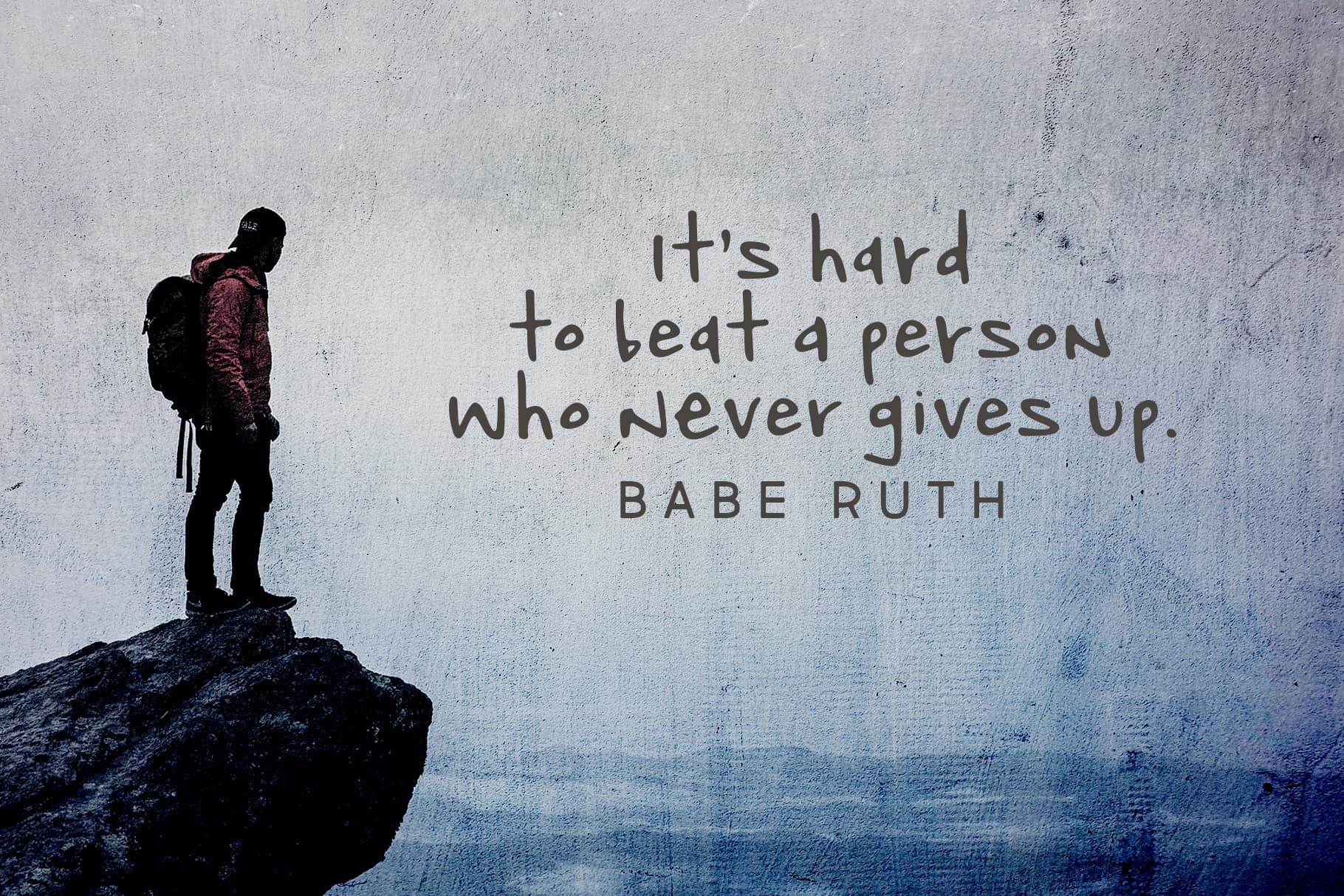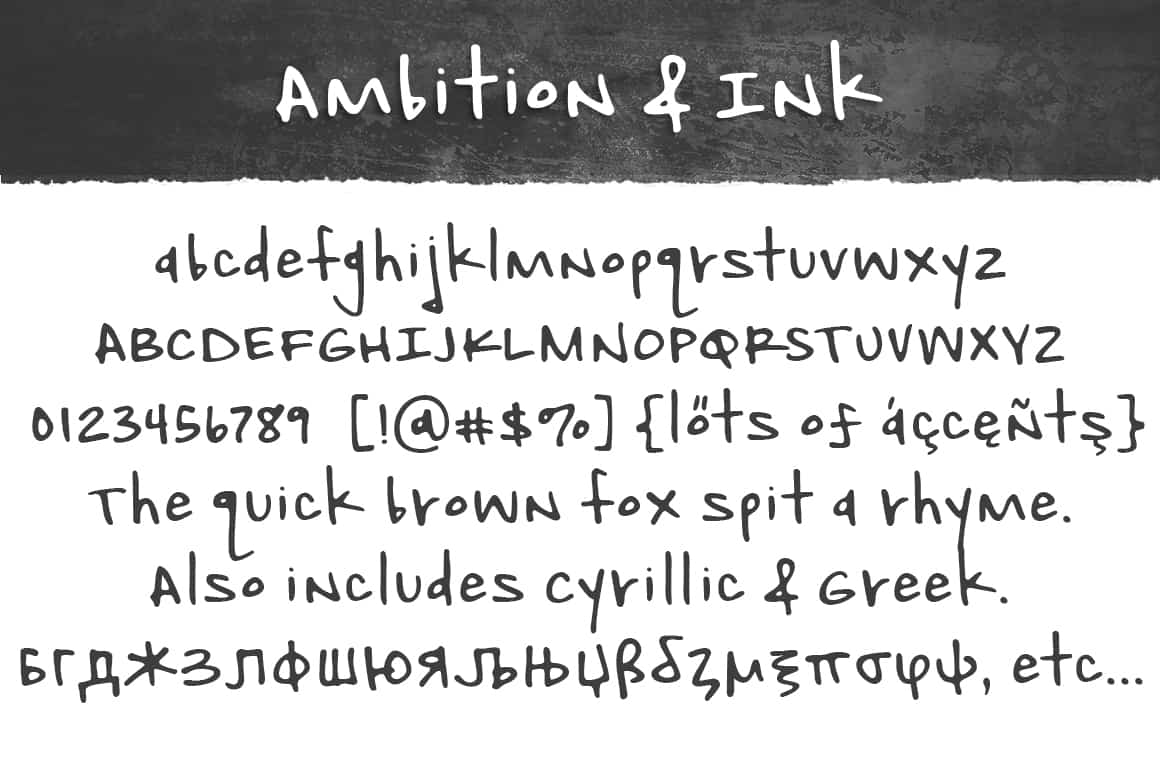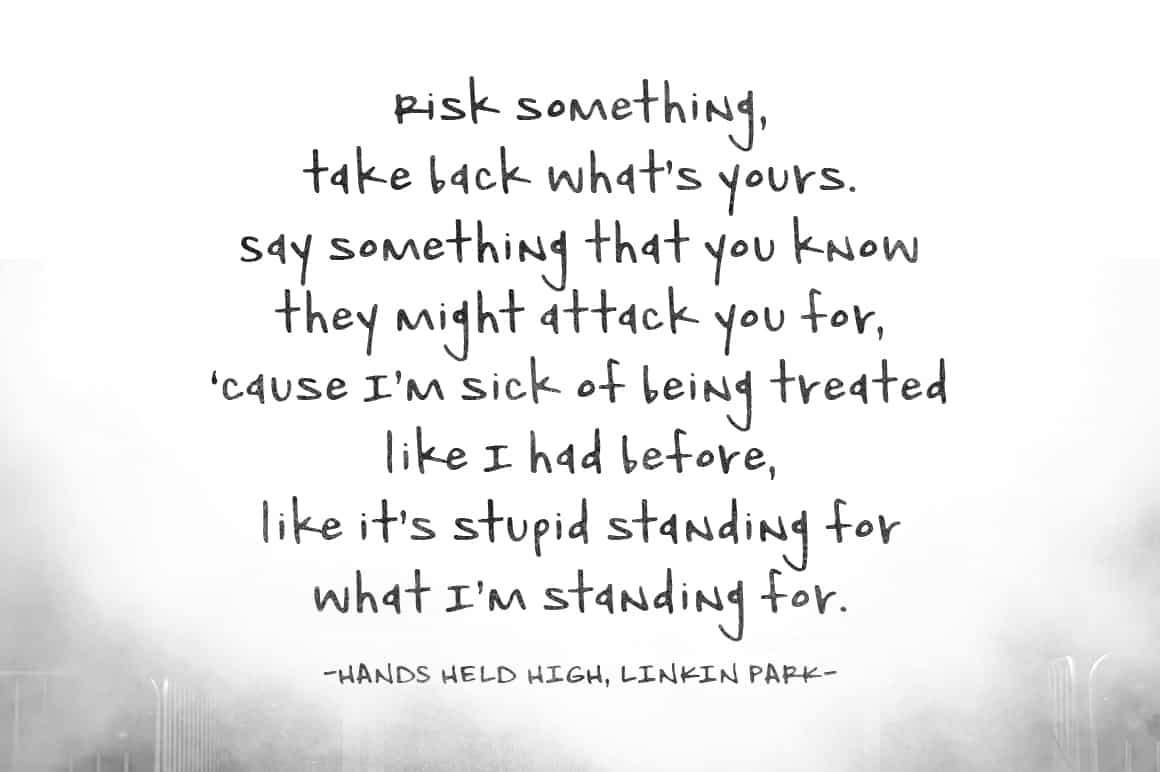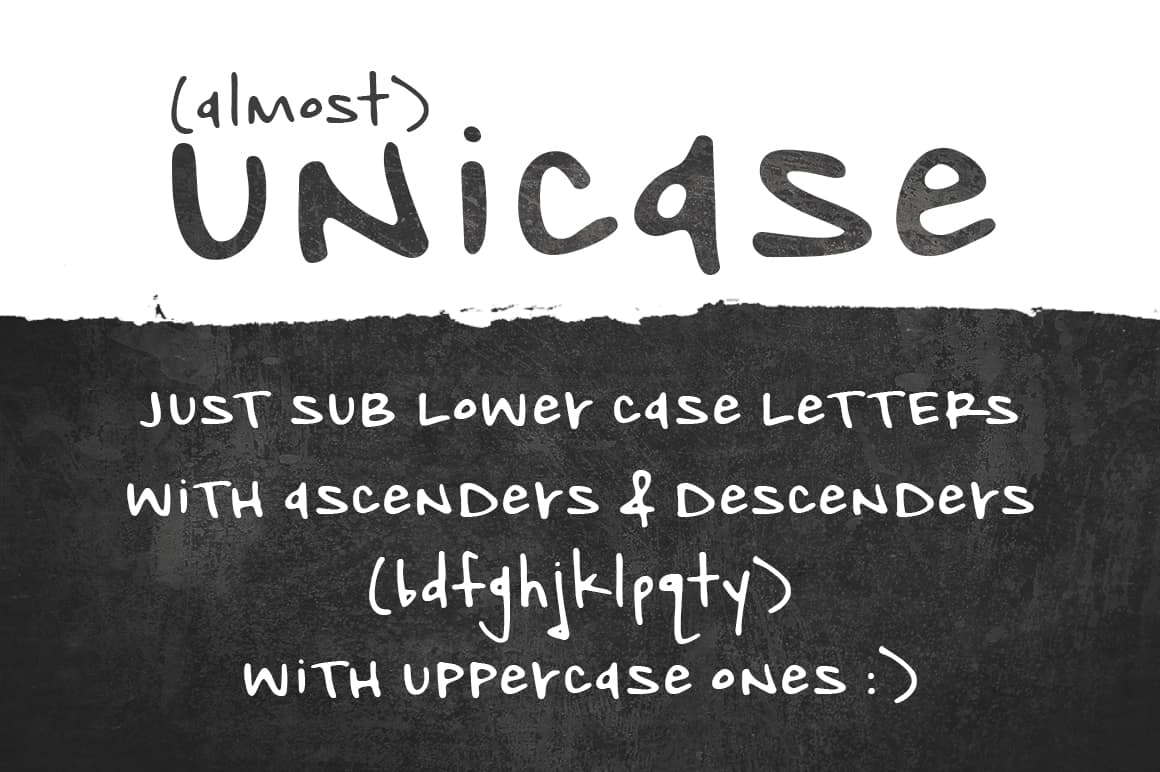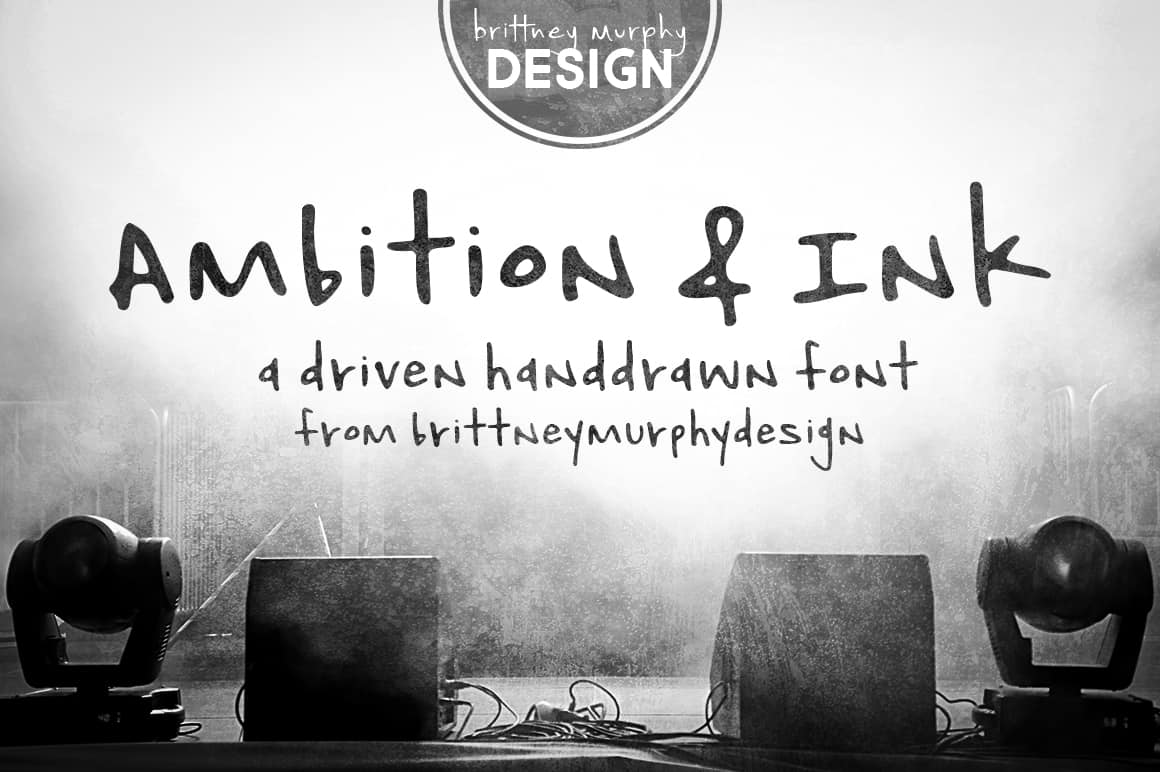
Ambition and Ink
Ambition & Ink Demo
Ambition & Ink Demo Letters
Ambition & Ink Demo Quote
Ambition & Ink Demo Unicase
Ambition & Ink Babe Ruth Quote
Ambition & Ink is a driven handdrawn font with lots of customization options created in 2017 by Brittney Murphy Design. It includes contextual alternates, stylistic alternates for a-z and A-Z, and ligatures with a total of almost 800 glyphs. It can also easily be used as a unicase font by subbing the lower case letters that have ascenders and descenders (bdfghjklpqty) for uppercase ones. Created by using a fine point sharpie, Ambition and Ink has a natural feeling for you to use in any of your logo, website, or graphic design projects.